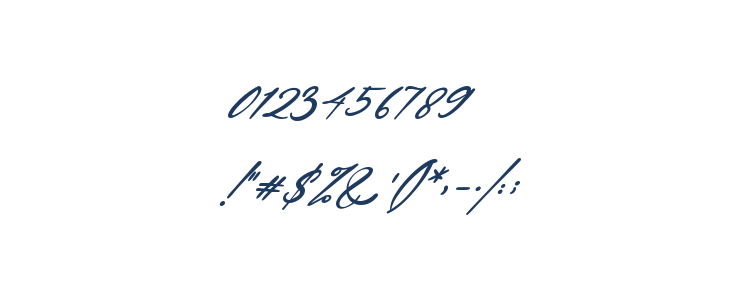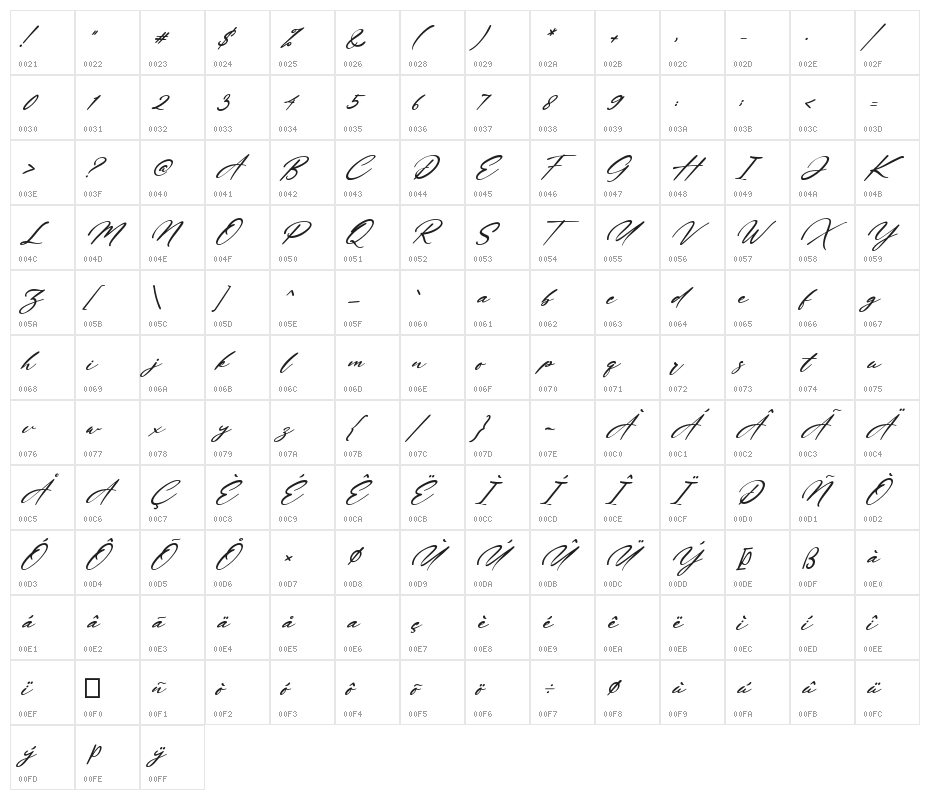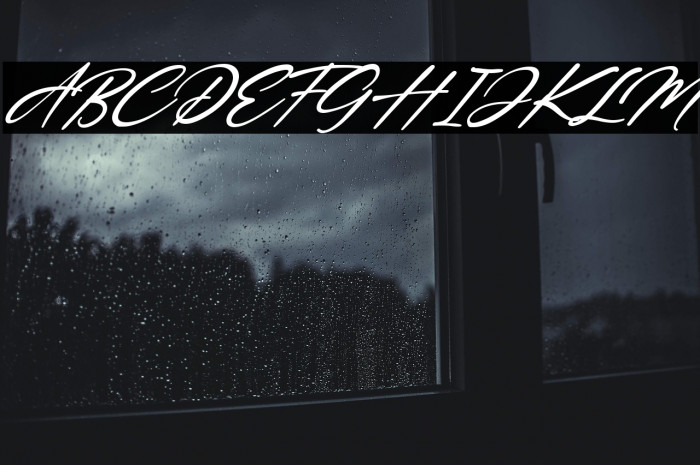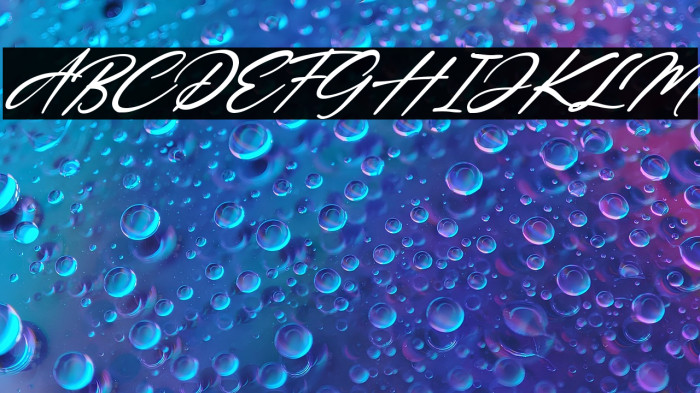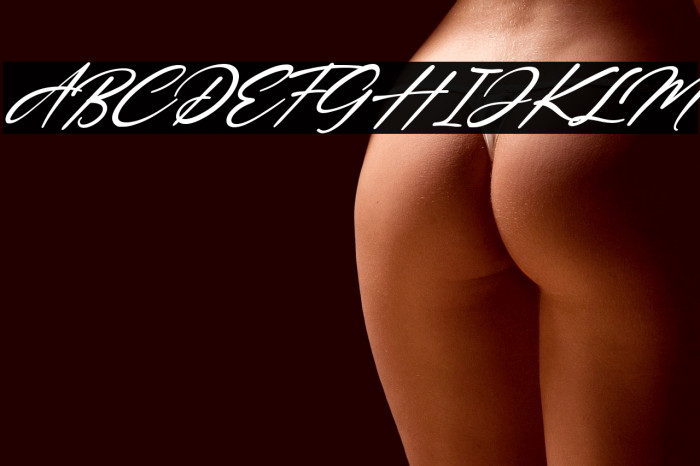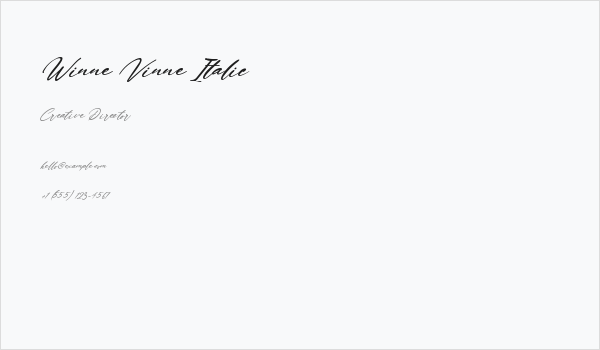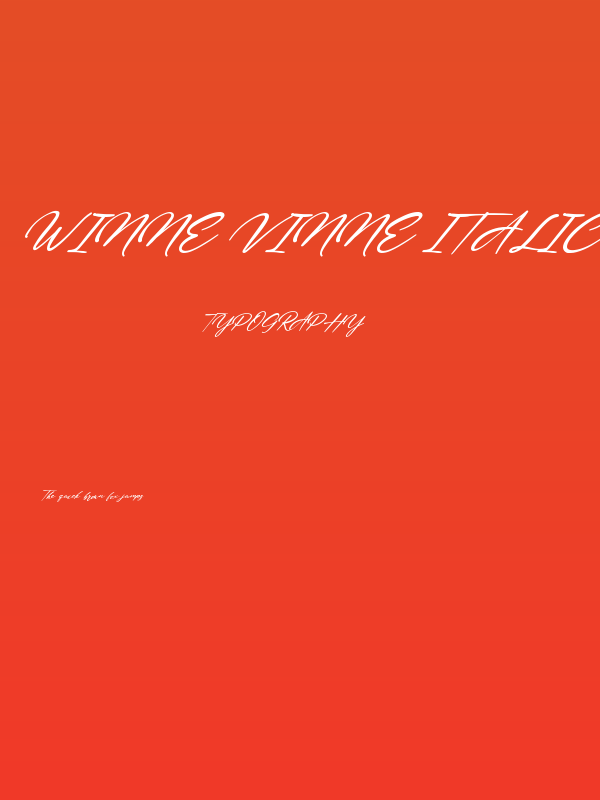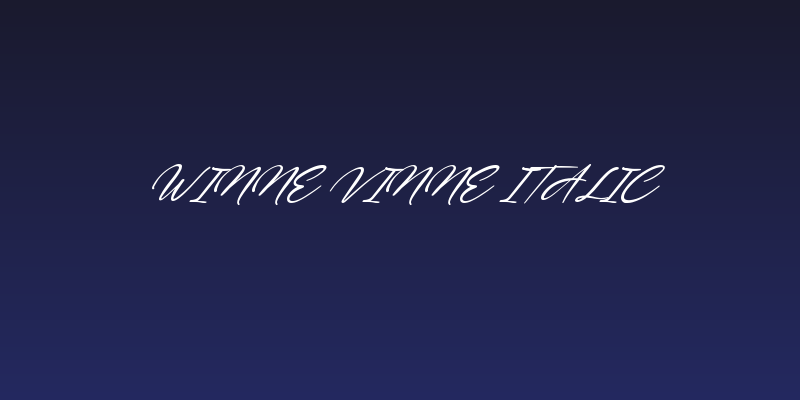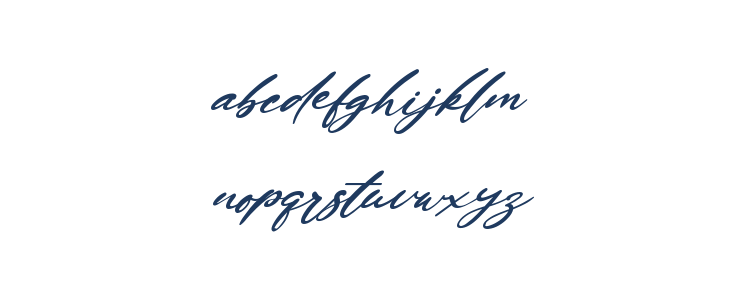
Winne Vinne Italic Font
Winne Vinne Italic Description
This font features an elegant, flowing script style that mimics the fluidity of handwriting. The characters are connected, creating a seamless and sophisticated appearance. The uppercase letters are bold and prominent, while the lowercase letters maintain a consistent rhythm and flow. The numerals and special characters are designed to complement the overall aesthetic, with a graceful and stylish flair. The italic slant adds a dynamic and expressive touch, making it suitable for creative and artistic projects.
| Overall Style | Elegant, Artistic |
| Proposed Projects | Ideal for wedding invitations, greeting cards, branding, and logo design where a touch of elegance and personal style is desired. |